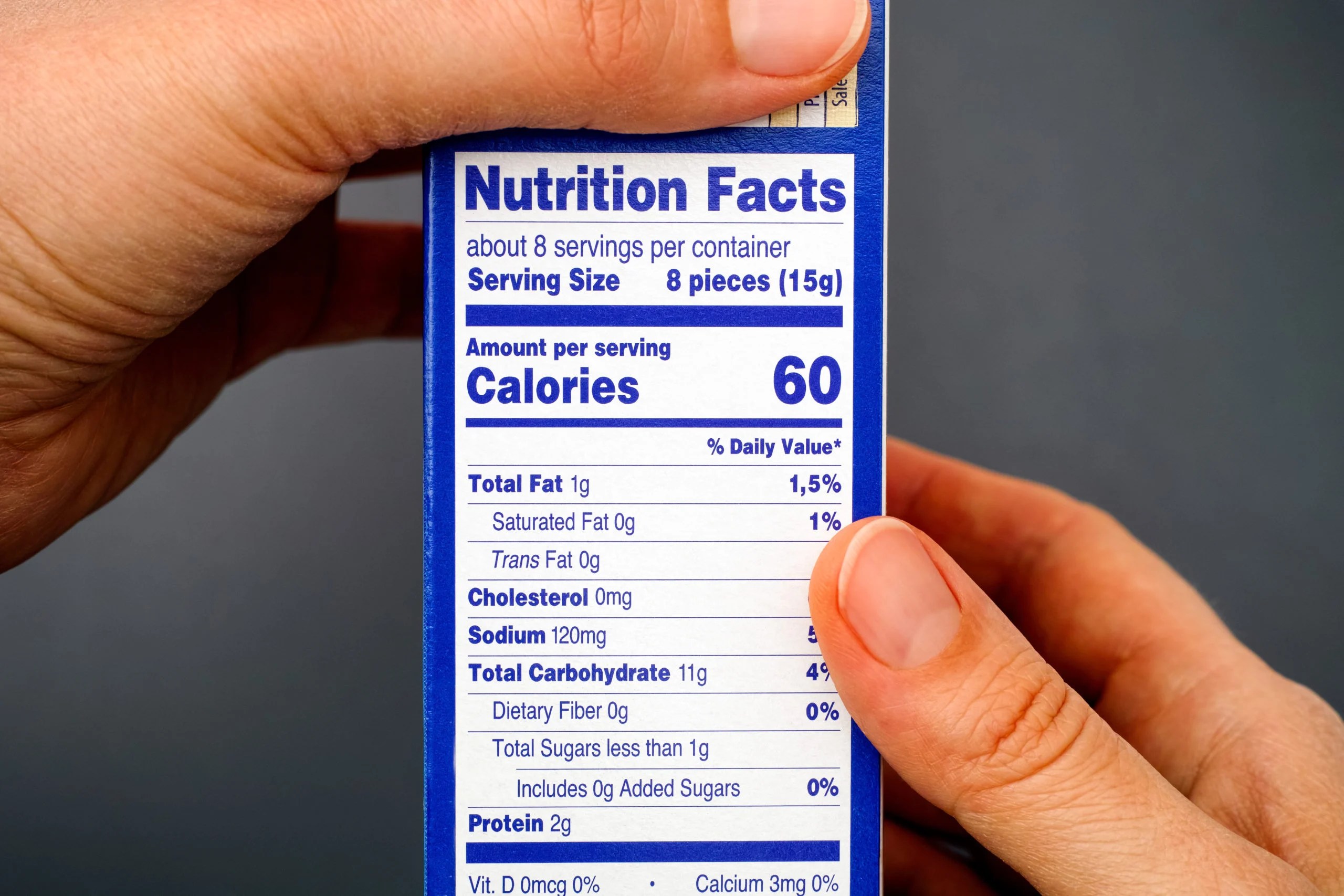
Best Font For Nutrition Label . Fda nutrition label font and rule sizes. The fda certainly likes the helvetica typeface and uses it throughout the label design. As you can see, helvetica is used throughout the label (although the heading “nutrition facts” can. Esha’s genesis r&d foods program uses arial for all formatting. It ensures that the information on the packaging is easily read and comprehended. This blog covers the recommended label typefaces, sizes, and styles for a standard nutrition facts panel. The fda’s stance on nutrition labels is clear: 2,000 calories a day is used for general nutrition advice. The fda’s examples are in helvetica and franklin gothic, but any legible font may be used. At recipal, we use helvetica and arial, depending on what font is available on your computer. The smallest font sizes that can be used on the nutrition facts label are 6 point (for the lettering below vitamins, minerals, and footnotes) and 8 point (for the rest of the label). Helvetica and arial (font geeks may scream at me for this), while not identical, are very. The % daily value (dv) tells you how much a nutrient in a serving of food contributes to a daily diet. Helvetica is chosen for its. What font should you use on your nutrition facts label?
The smallest font sizes that can be used on the nutrition facts label are 6 point (for the lettering below vitamins, minerals, and footnotes) and 8 point (for the rest of the label). The fda’s stance on nutrition labels is clear: What font should you use on your nutrition facts label? The fda’s examples are in helvetica and franklin gothic, but any legible font may be used. As you can see, helvetica is used throughout the label (although the heading “nutrition facts” can. It ensures that the information on the packaging is easily read and comprehended. This blog covers the recommended label typefaces, sizes, and styles for a standard nutrition facts panel. The fda certainly likes the helvetica typeface and uses it throughout the label design. At recipal, we use helvetica and arial, depending on what font is available on your computer. The helvetica font has become an.
Best Font For Nutrition Label Helvetica and arial (font geeks may scream at me for this), while not identical, are very. This blog covers the recommended label typefaces, sizes, and styles for a standard nutrition facts panel. Helvetica and arial (font geeks may scream at me for this), while not identical, are very. Fda nutrition label font and rule sizes. Helvetica is chosen for its. The smallest font sizes that can be used on the nutrition facts label are 6 point (for the lettering below vitamins, minerals, and footnotes) and 8 point (for the rest of the label). What font should you use on your nutrition facts label? Esha’s genesis r&d foods program uses arial for all formatting. The % daily value (dv) tells you how much a nutrient in a serving of food contributes to a daily diet. At recipal, we use helvetica and arial, depending on what font is available on your computer. The helvetica font has become an. The fda certainly likes the helvetica typeface and uses it throughout the label design. As you can see, helvetica is used throughout the label (although the heading “nutrition facts” can. It ensures that the information on the packaging is easily read and comprehended. The fda’s examples are in helvetica and franklin gothic, but any legible font may be used. 2,000 calories a day is used for general nutrition advice.
Understanding the Changes to the 2018 FDA Nutrition Label Best Font For Nutrition Label Fda nutrition label font and rule sizes. The fda’s stance on nutrition labels is clear: At recipal, we use helvetica and arial, depending on what font is available on your computer. 2,000 calories a day is used for general nutrition advice. Esha’s genesis r&d foods program uses arial for all formatting. As you can see, helvetica is used throughout the. Best Font For Nutrition Label.
New Nutrition Facts Label in 2020 Changes and What to Know Best Font For Nutrition Label 2,000 calories a day is used for general nutrition advice. The smallest font sizes that can be used on the nutrition facts label are 6 point (for the lettering below vitamins, minerals, and footnotes) and 8 point (for the rest of the label). At recipal, we use helvetica and arial, depending on what font is available on your computer. The. Best Font For Nutrition Label.
Fonts for Nutrition Information Labels Labeling News Best Font For Nutrition Label The fda’s stance on nutrition labels is clear: It ensures that the information on the packaging is easily read and comprehended. At recipal, we use helvetica and arial, depending on what font is available on your computer. This blog covers the recommended label typefaces, sizes, and styles for a standard nutrition facts panel. Esha’s genesis r&d foods program uses arial. Best Font For Nutrition Label.
Honey Nutritional Labels (1000pc) Ecrotek Beekeeping Supplies Australia Best Font For Nutrition Label Helvetica and arial (font geeks may scream at me for this), while not identical, are very. At recipal, we use helvetica and arial, depending on what font is available on your computer. The % daily value (dv) tells you how much a nutrient in a serving of food contributes to a daily diet. The fda’s examples are in helvetica and. Best Font For Nutrition Label.
How to Read Nutrition Labels Best Font For Nutrition Label The helvetica font has become an. Fda nutrition label font and rule sizes. 2,000 calories a day is used for general nutrition advice. At recipal, we use helvetica and arial, depending on what font is available on your computer. The fda’s examples are in helvetica and franklin gothic, but any legible font may be used. It ensures that the information. Best Font For Nutrition Label.
2.5oz Pouch SPAM Flavored Nutritional Label Hamakua Macadamia Nut Company Best Font For Nutrition Label What font should you use on your nutrition facts label? The fda certainly likes the helvetica typeface and uses it throughout the label design. Helvetica and arial (font geeks may scream at me for this), while not identical, are very. 2,000 calories a day is used for general nutrition advice. At recipal, we use helvetica and arial, depending on what. Best Font For Nutrition Label.
Nutrition Facts Label Font Nutrition Facts Labels For Food Processors Best Font For Nutrition Label Fda nutrition label font and rule sizes. The helvetica font has become an. This blog covers the recommended label typefaces, sizes, and styles for a standard nutrition facts panel. The fda certainly likes the helvetica typeface and uses it throughout the label design. The fda’s stance on nutrition labels is clear: Helvetica is chosen for its. The smallest font sizes. Best Font For Nutrition Label.
How to Create a FDA Approved Nutrition Fact Label MenuSano Best Font For Nutrition Label The fda certainly likes the helvetica typeface and uses it throughout the label design. The fda’s examples are in helvetica and franklin gothic, but any legible font may be used. It ensures that the information on the packaging is easily read and comprehended. The smallest font sizes that can be used on the nutrition facts label are 6 point (for. Best Font For Nutrition Label.